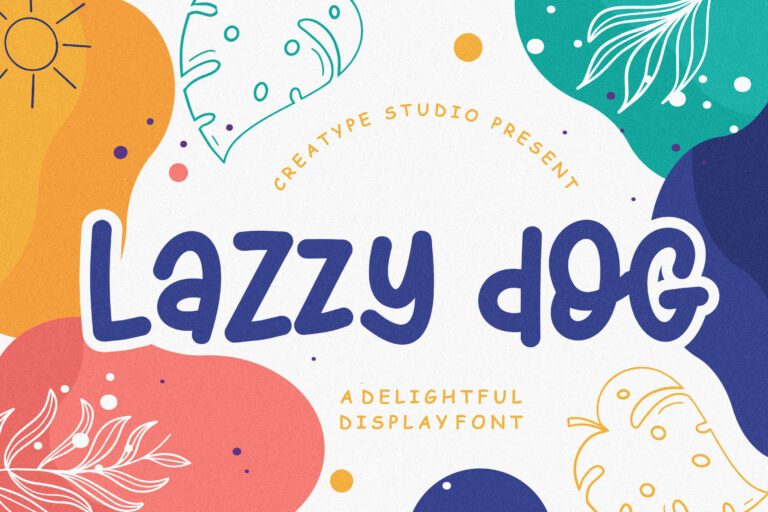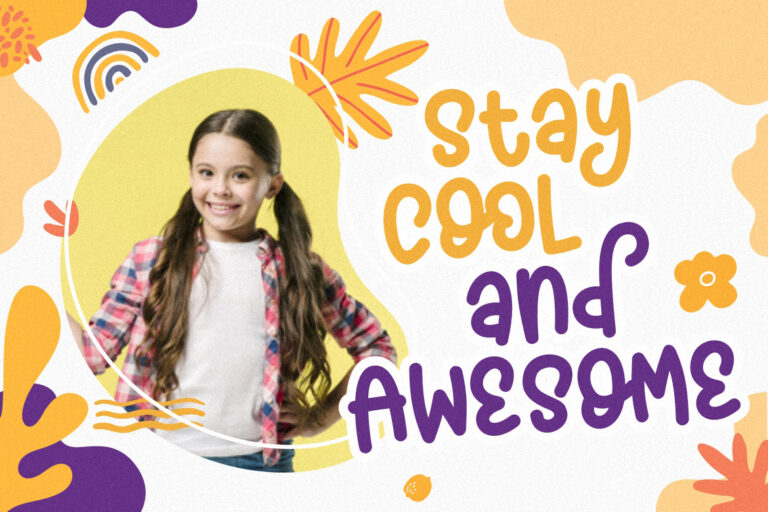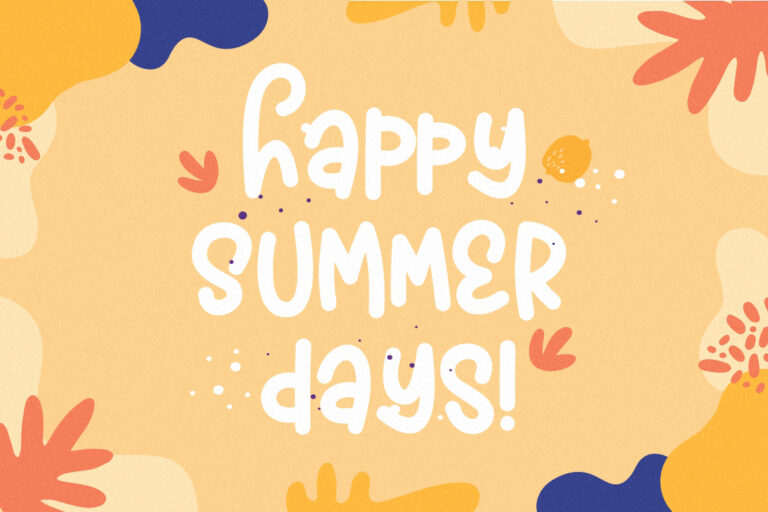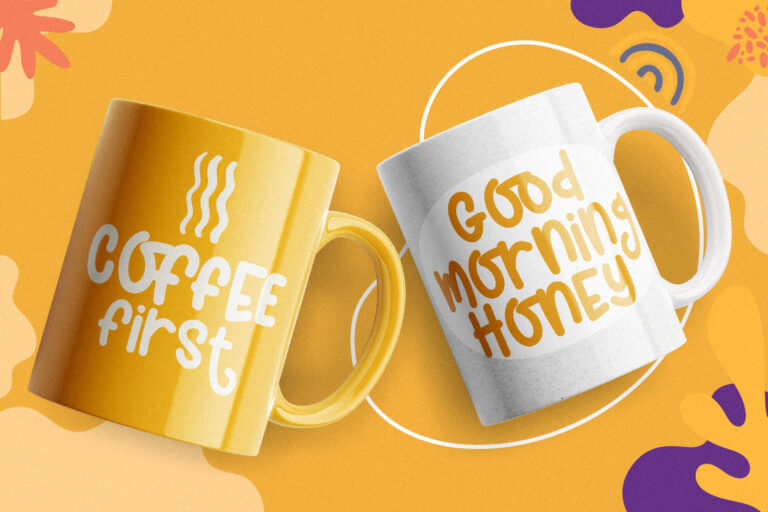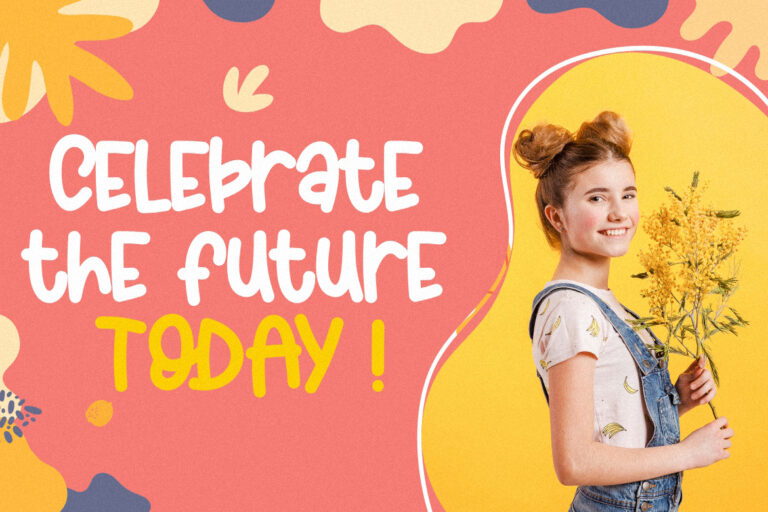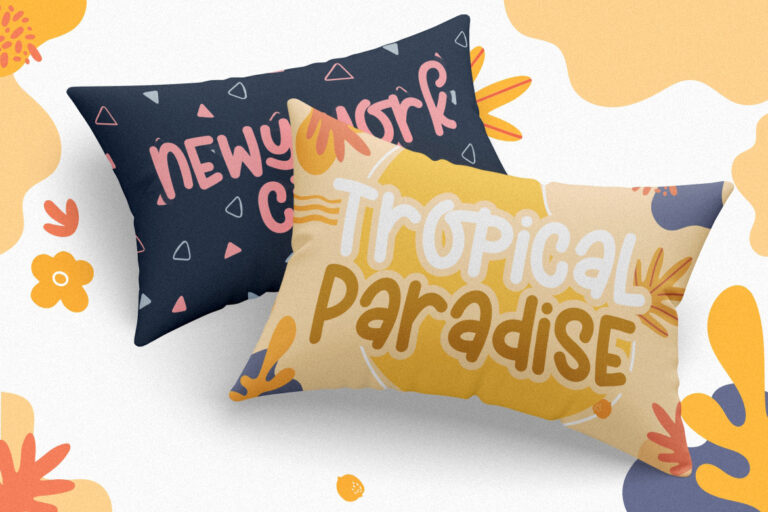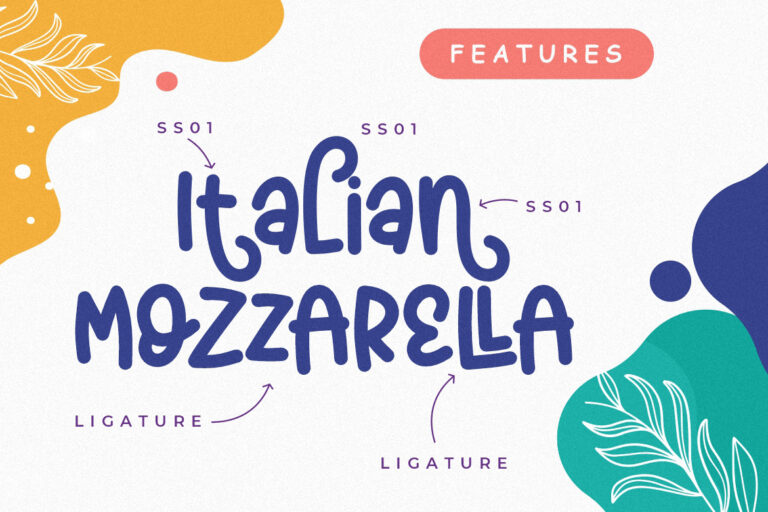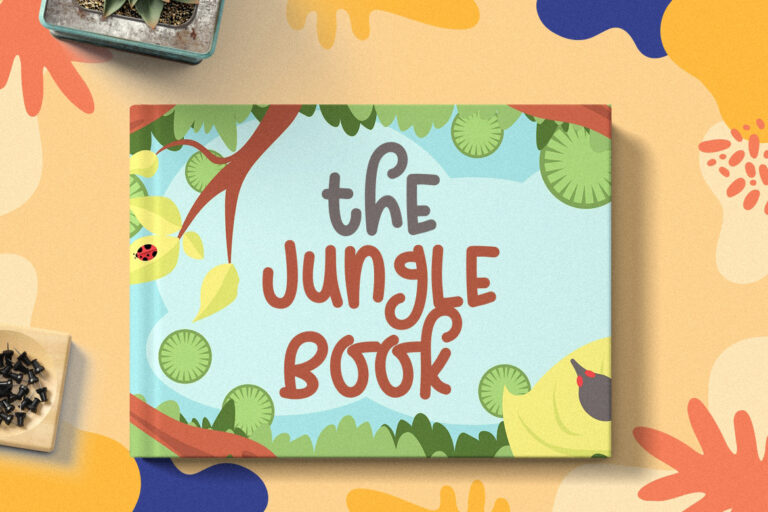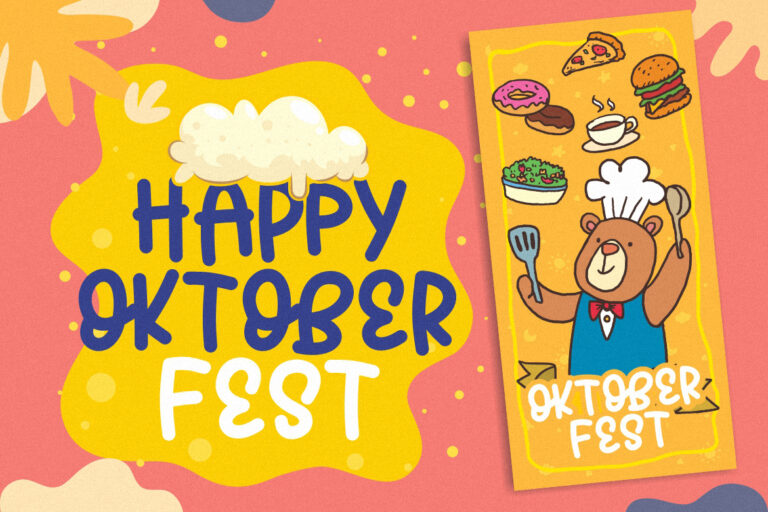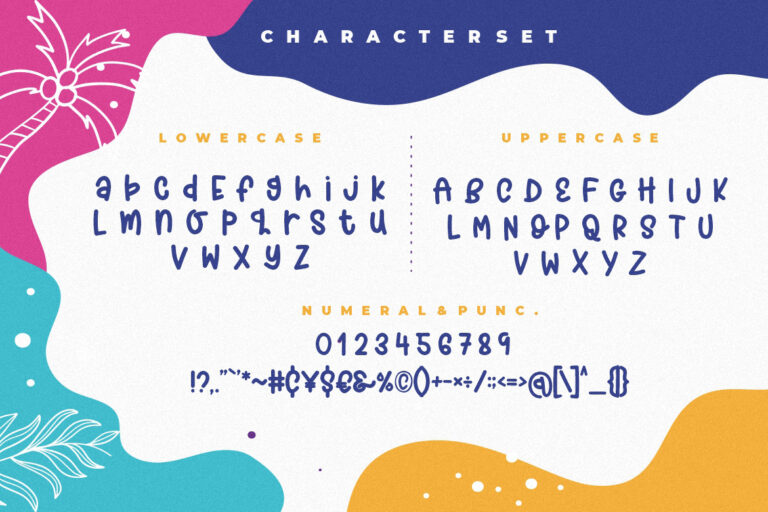
Lazzy Dog Delightful Display Typeface
Lazzy Dog a delightful display font which suitable to use for children occasion and related to fun event.
Lazzy Dog would perfect for photography, watermark, social media posts, advertisements, logos & branding, invitation, product designs, label, stationery, wedding designs, product packaging, special events or anything that need handwriting taste.
- Ton of glyphs
- Ligature & Alternate